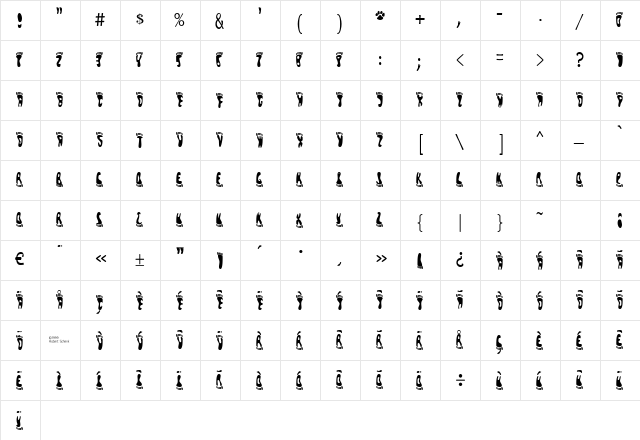
Pedestrian Regular
Design Context for Pedestrian Typeface
Pedestrian is a composed and adaptable typeface that performs quietly and consistently across a wide range of design contexts.